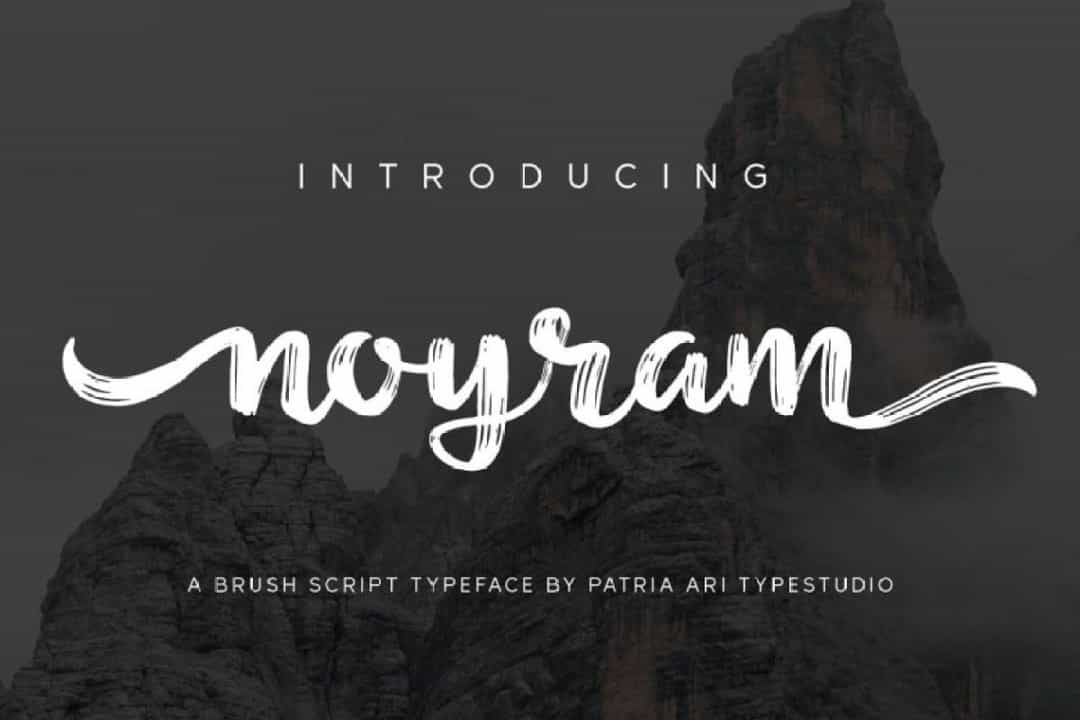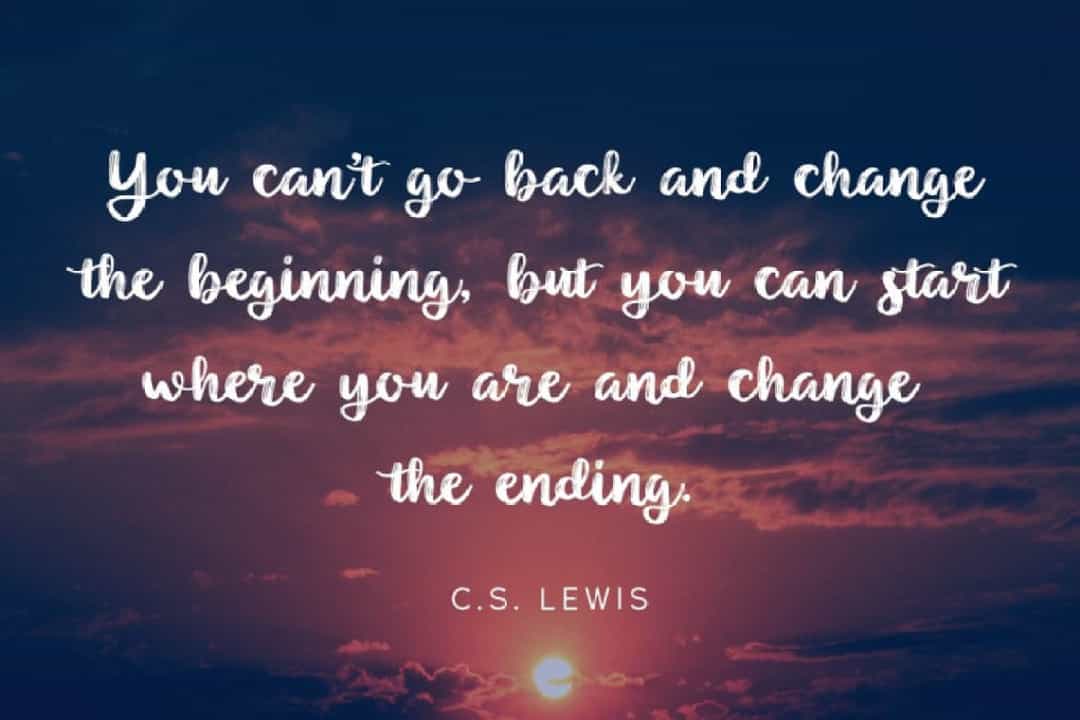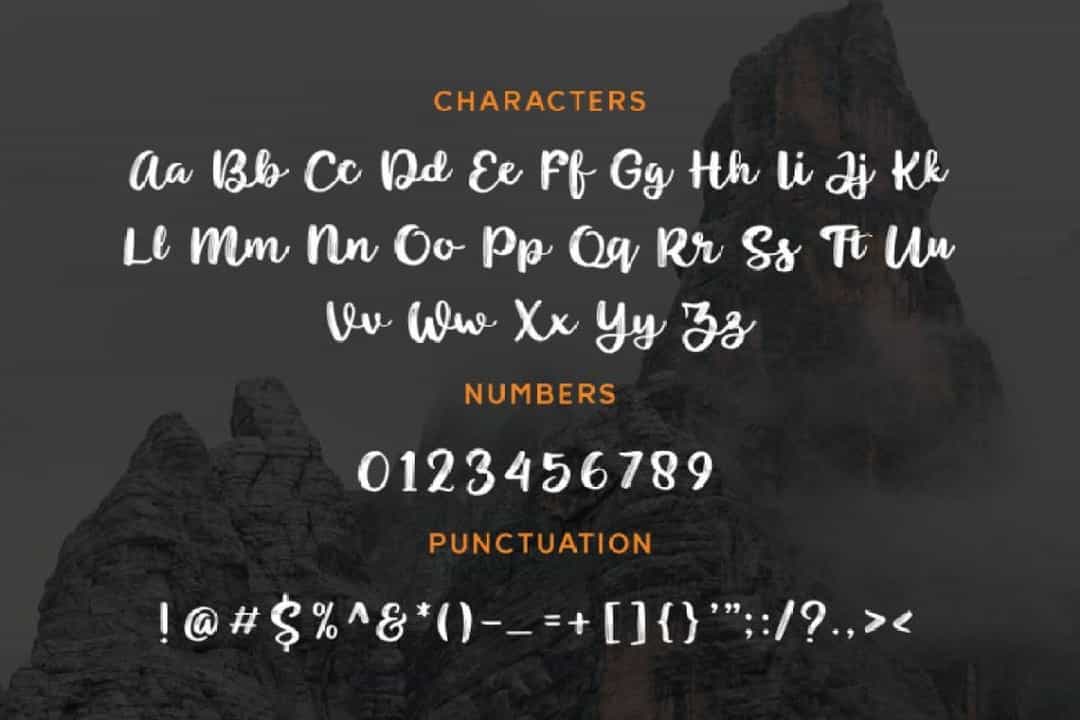
Noyram is an artistic brush script typeface with beautiful set of alternate characters. Great for logos, branding works, ads, social media posts, packaging and product designs, labels and any other graphic design project that you might be involved in!